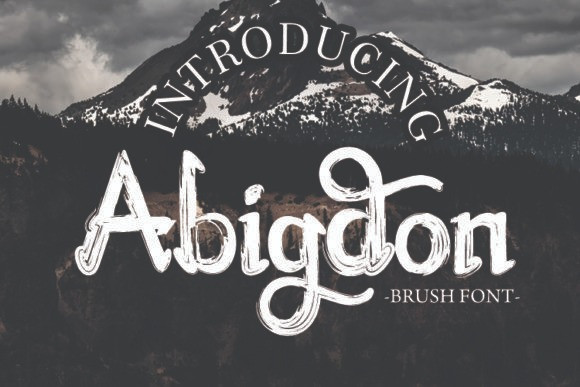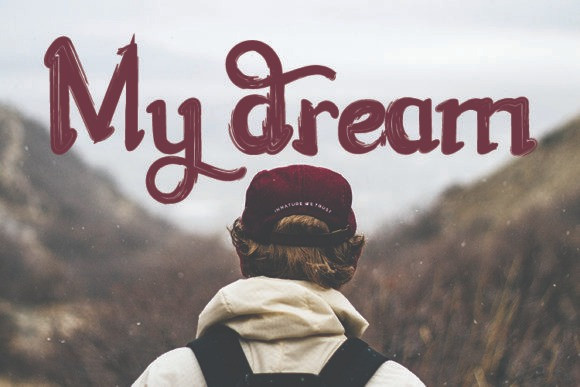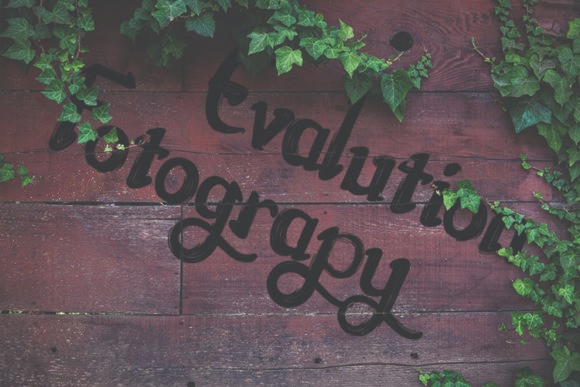
Abingdon Brush Font
Abigdon is a casual display font, created by using a dry brush pen.
This font is suitable for logos, product designs, labels, watermarks, social media posts, apparel, invitations, signboard, sports club, motor/car, special events or anything that requires a handwritten taste.